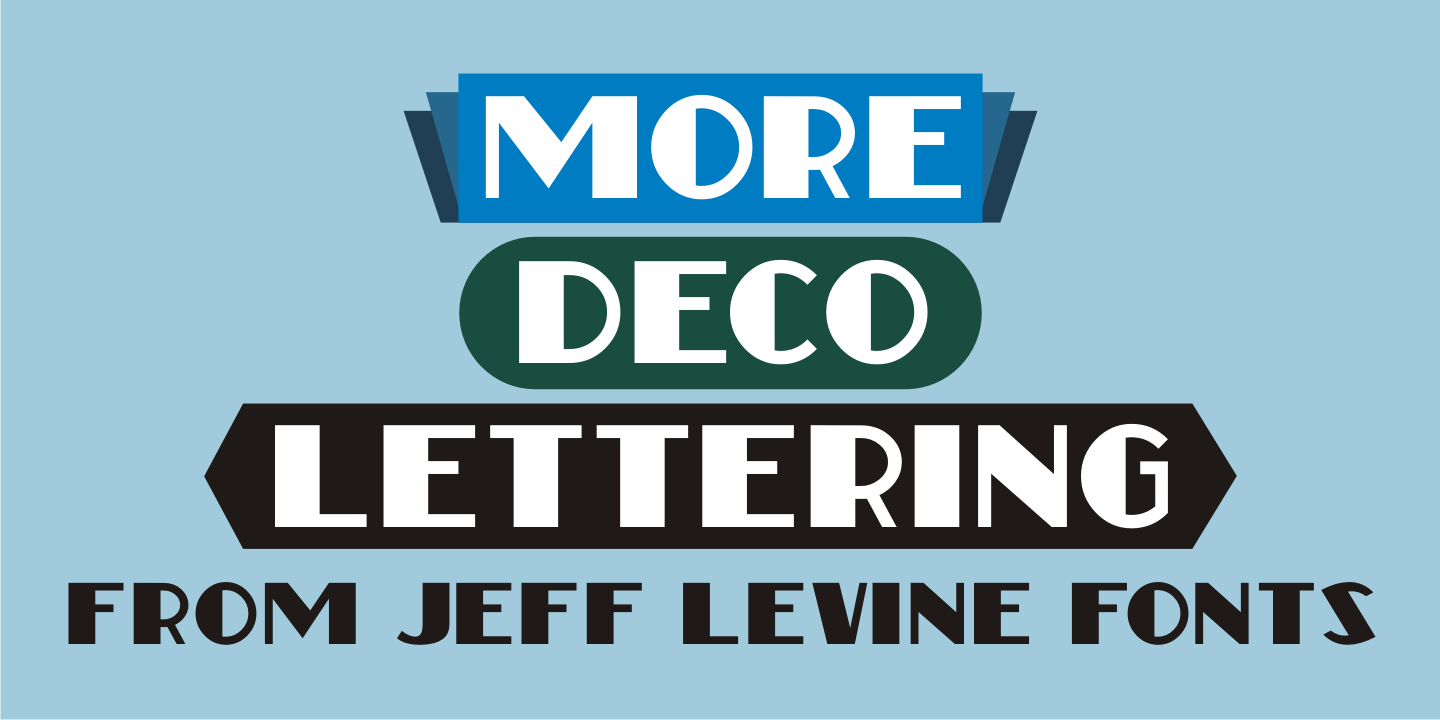
Sign Department
For decades – until the advent of affordable computer-generated signage – die-cut display letters were used for many applications.
Stores, theaters, schools, charities and religious organizations would have their local sign shop design attracting posters and show cards utilizing these sturdy cardboard letters and numbers, giving a three-dimensional effect to the message.
Sign Department JNL recreates one of the many styles of letters available at the time.
Sign Department JNL Regular by Jeff Levine Fonts